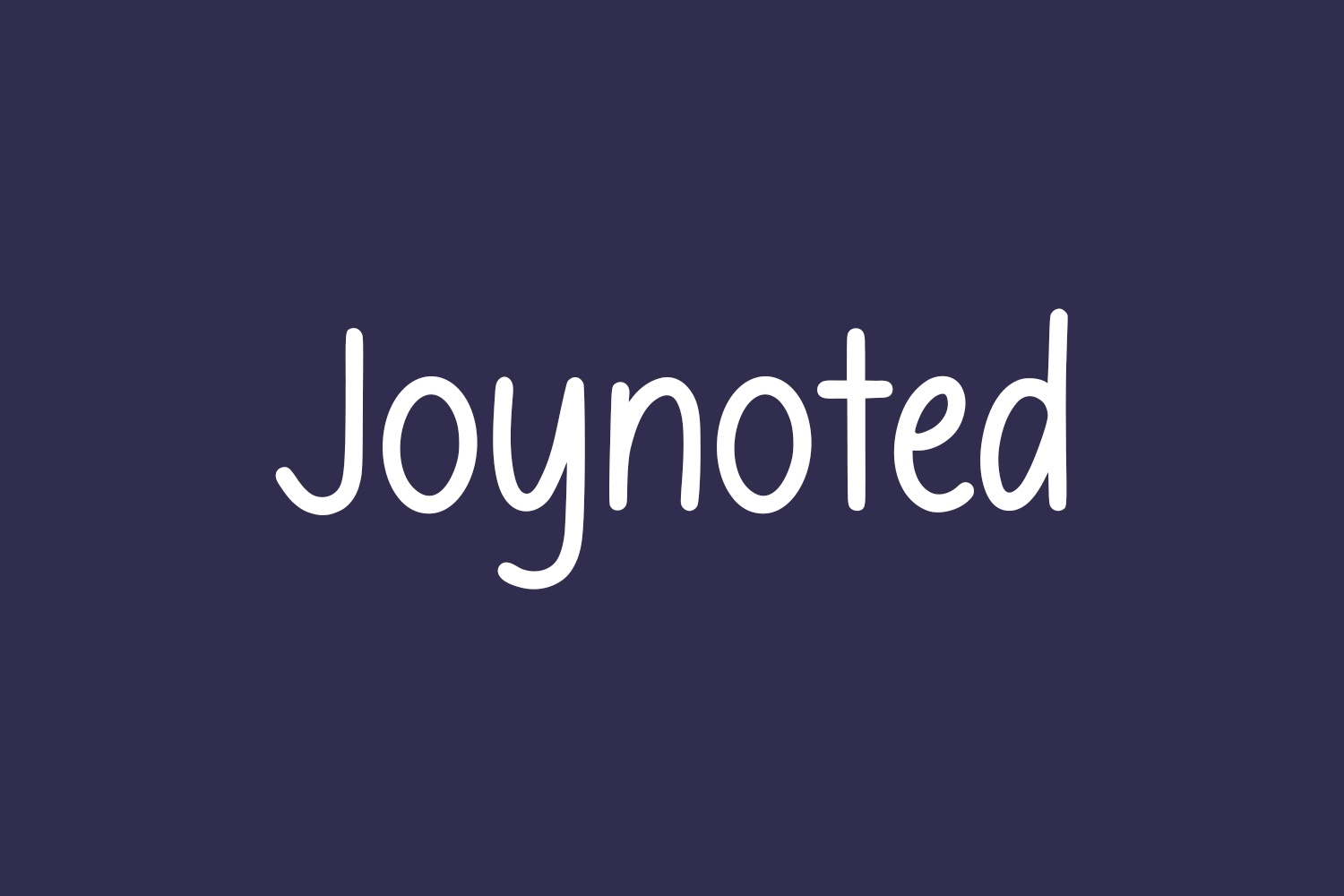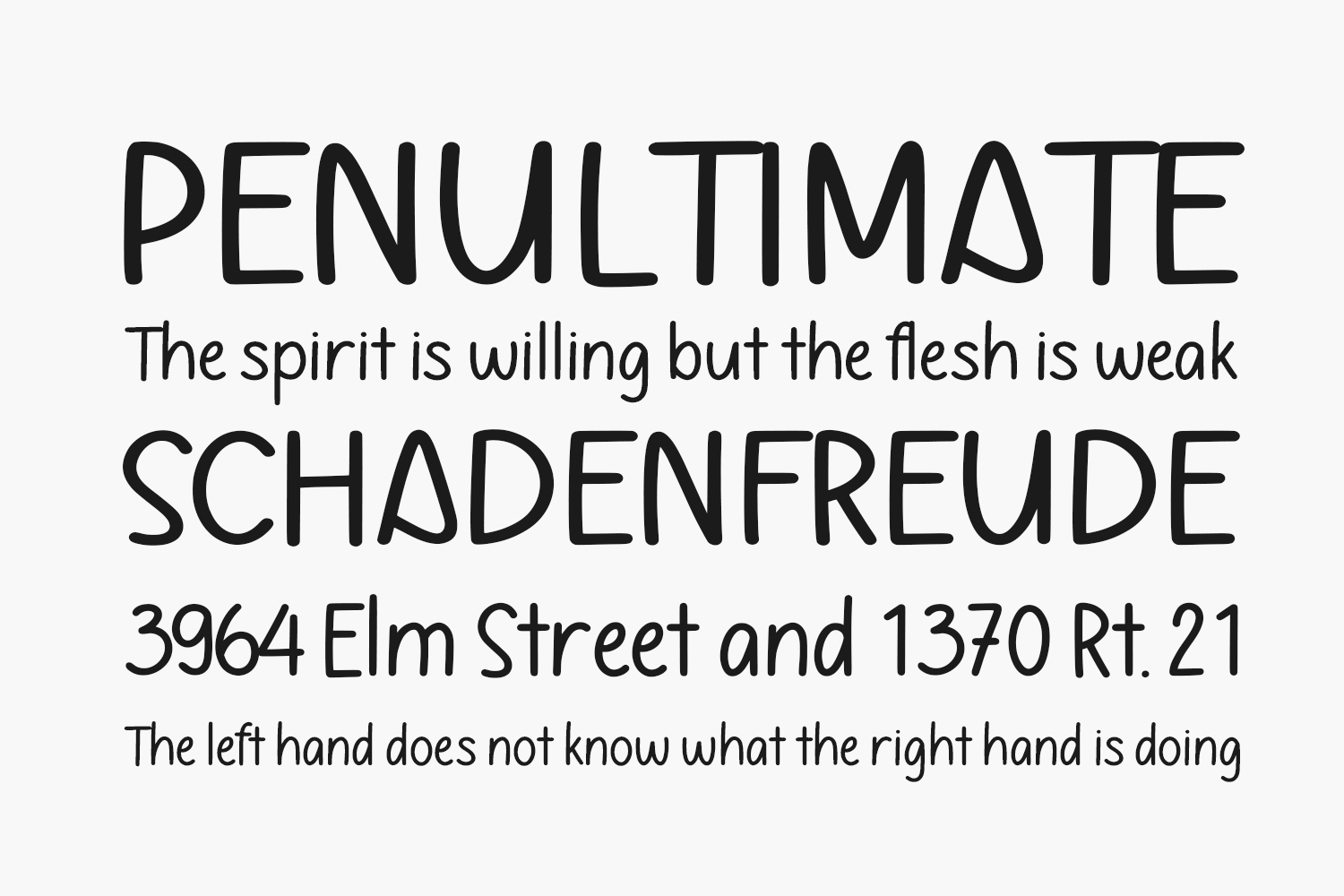
Joynoted Free Font is a handwritten font that will enhance your product with its elegant and modern lines. This font was particularly crafted for those who need a beautiful and refreshing look to their designs. Joynoted Free Font was designed by Allouse Studio and is free for personal or commercial use.